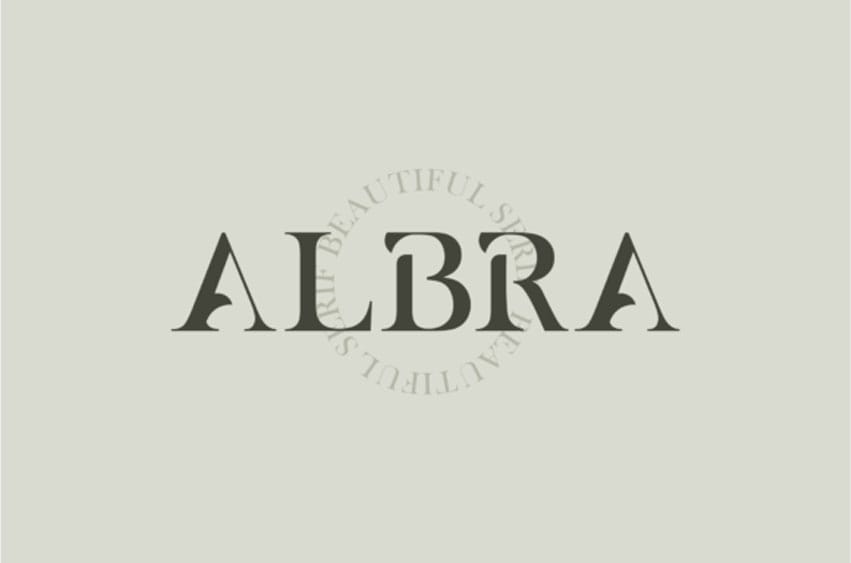
Albra Serif Font is a bold and thick lettered serif font.
Fall in love with its incredibly versatile style and use it to create gorgeous wedding invitations, beautiful stationary art, eye-catching social media posts, and much more!